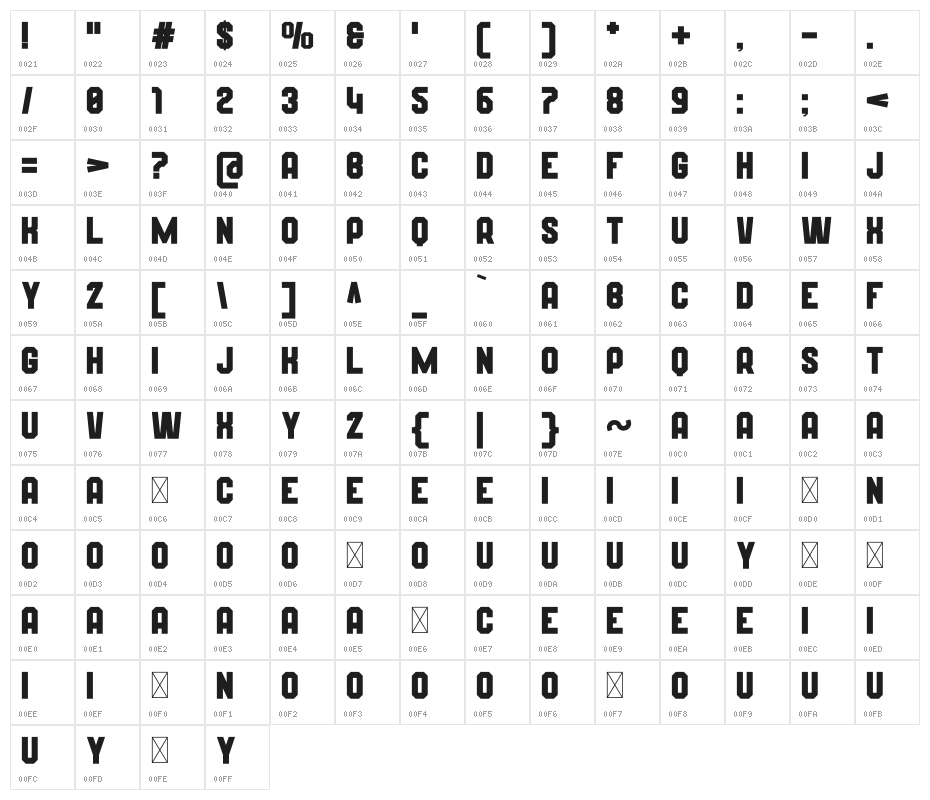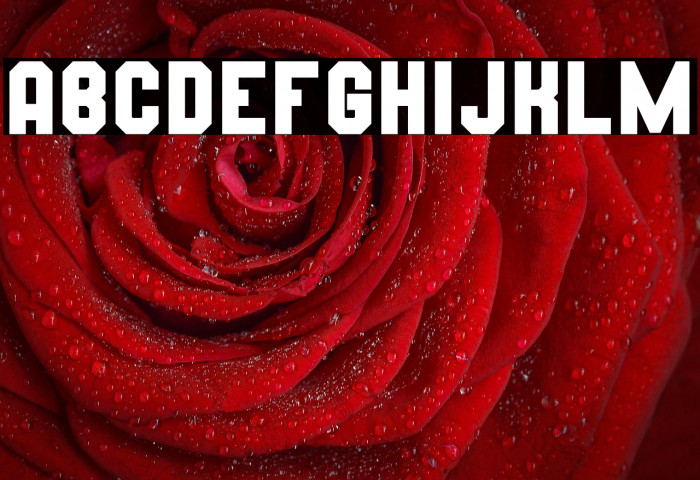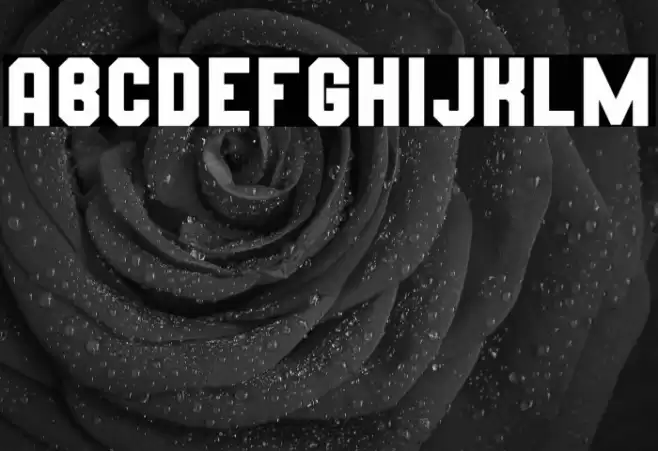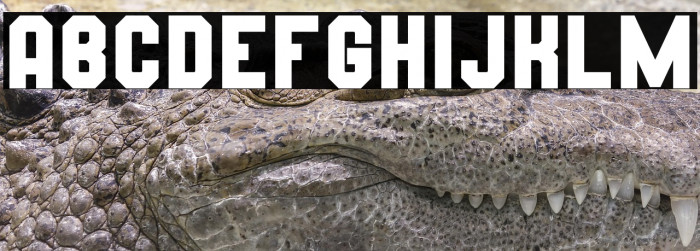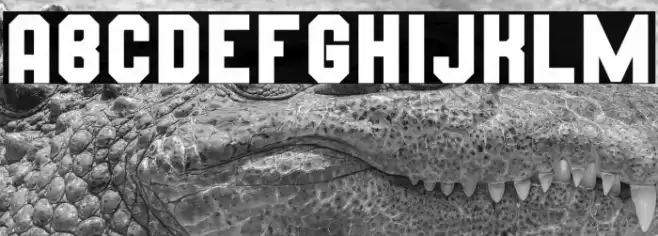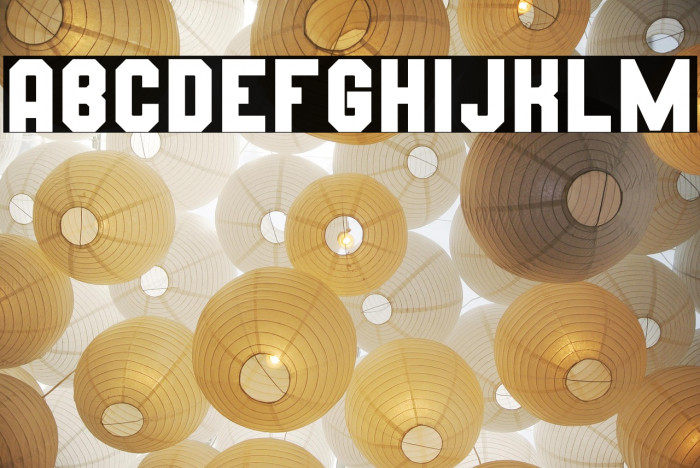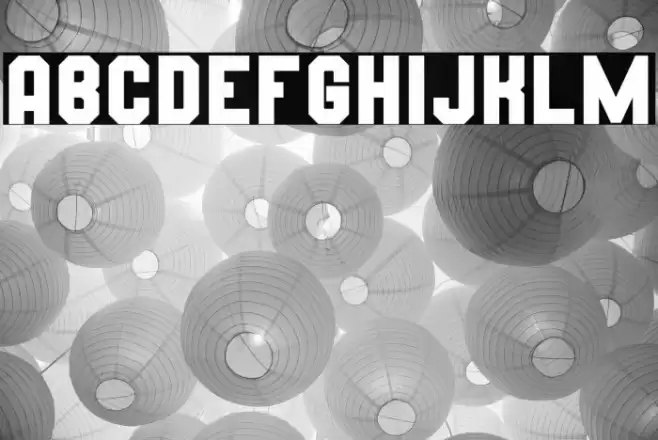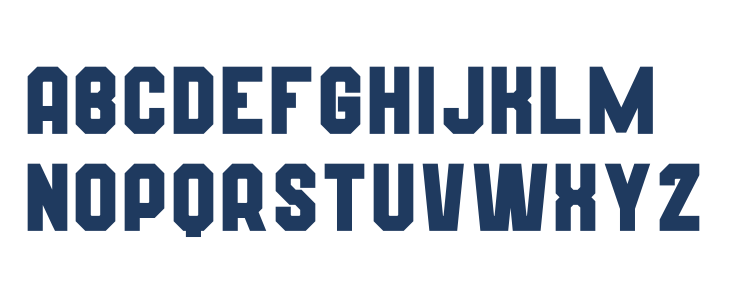
Wynford Solid Font
Wynford Solid Description
This font features a bold, geometric style with strong, angular lines and a solid presence. The characters are blocky and robust, giving off a sense of strength and stability. The uppercase and lowercase letters maintain a consistent weight, contributing to a uniform appearance. The numerals and special characters are designed to match the boldness of the alphabet, ensuring a cohesive look across all text. The font's design is reminiscent of industrial or sports-themed aesthetics, making it suitable for impactful and attention-grabbing applications.
| Proposed Projects | Ideal for sports branding, industrial design projects, posters, and headlines that require a strong visual impact. |